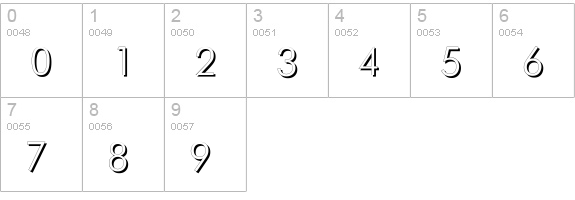
PT FuturaFuturis Shadow Cyrillic Font Details
Introducing PT FuturaFuturis Shadow Cyrillic font, a modern and sleek typeface that brings a futuristic edge to your projects. This unique font combines clean lines with a subtle shadow effect, adding depth and dimension to your designs. Perfect for creating eye-catching headlines, logos, posters, and more, PT FuturaFuturis Shadow Cyrillic font is sure to make a bold statement. Best of all, this font is available for free download at FontsMarket.com. Simply head to the website to access this versatile typeface and enhance your creative projects with its contemporary flair. Don't miss out on the opportunity to elevate your designs with the PT FuturaFuturis Shadow Cyrillic font - download it today and let your creativity shine!